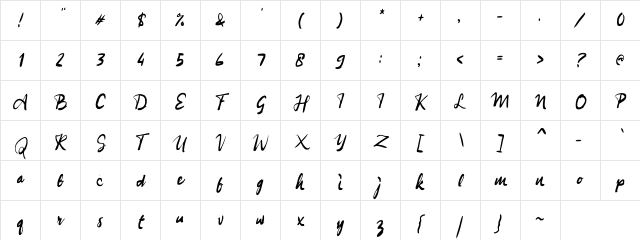
a Berlari Regular
Designer: Wahyu Eka Prasetya
Design Context for a Berlari
a Berlari is a composed and adaptable typeface that performs quietly and consistently across a wide range of design contexts.